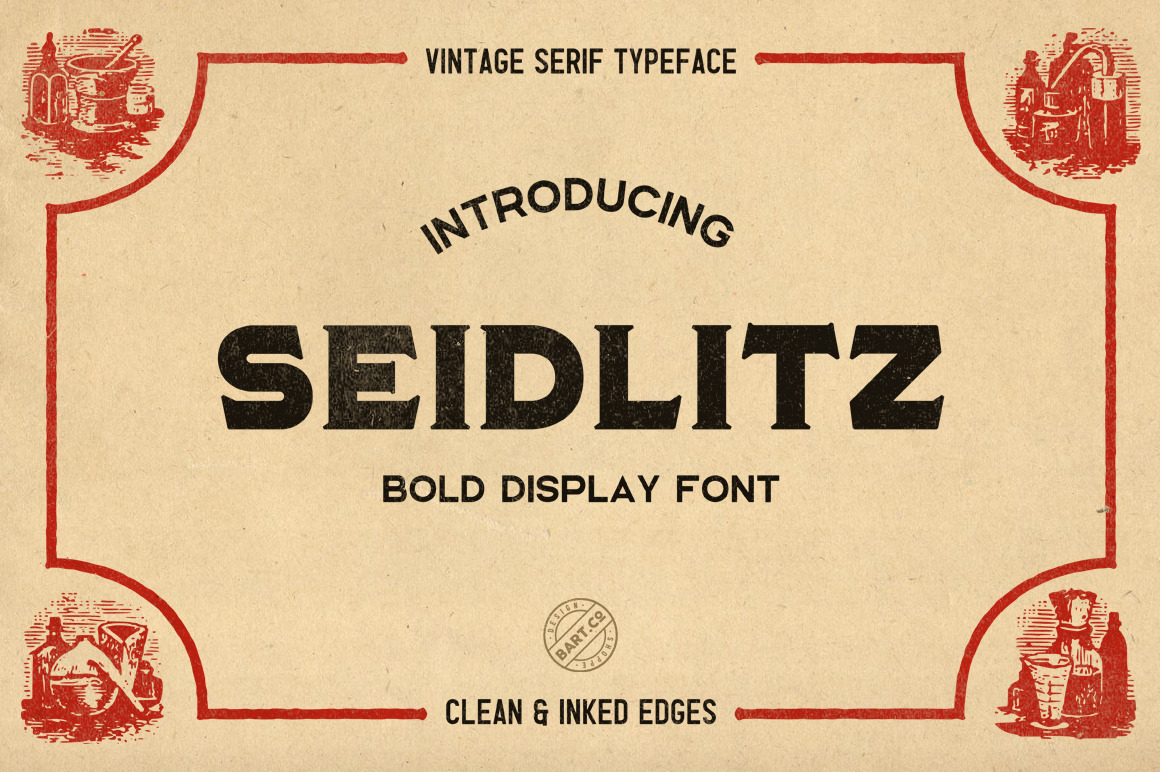
Seidlitz Font
Seidlitz is a bold vintage font inspired by retro apothecary typography. Typeface is great for vintage logos, labels, posters and more.
Pack includes two styles: clean and rough.